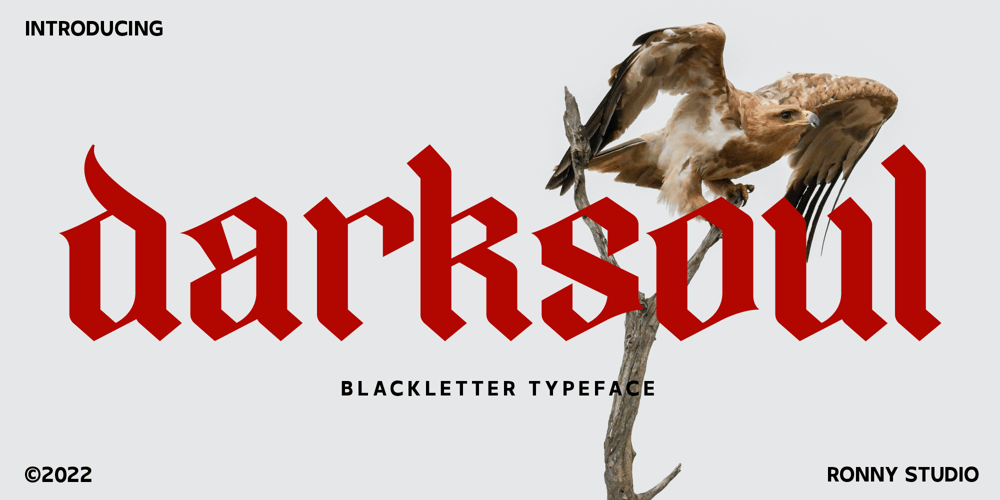
Darksoul Font Family was designed by Rony Rizki Jaya and published by Ronny Studio. Darksoul contains 1 styles and family package options. Darksoul is a blackletter font in the retro style. Elegant and rounded, it adds a bold touch to your projects and will inspire you to create something unique and modern. This font is also equipped with alternative characters, and multi-language support. Font is ideal for headings, flyers, greeting cards, product packaging, book covers, printed quotes, logotype, apparel design, and album covers.Features : Lowercase & Uppercase numbers and punctuation multilingual alternates PUA encoded Please contact us if you have any questions. Enjoy Crafting and thanks for supporting us! :)Thank you